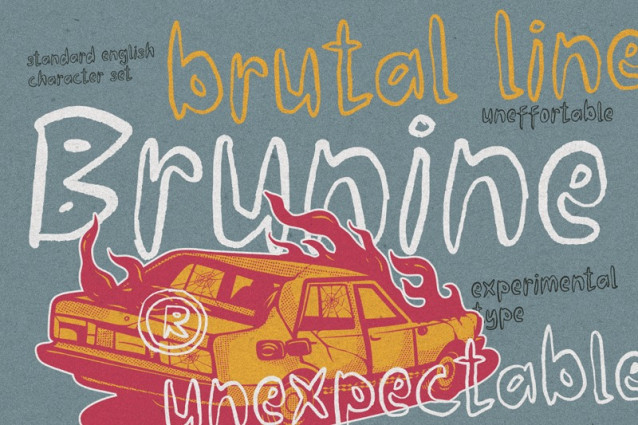
Brunine Font
Brunine Font is a font with a natural hand-drawn style, giving it a casual and expressive feel. Designed in a playful and natural style, this font family is perfect for posters, product packaging, branding and social media content.